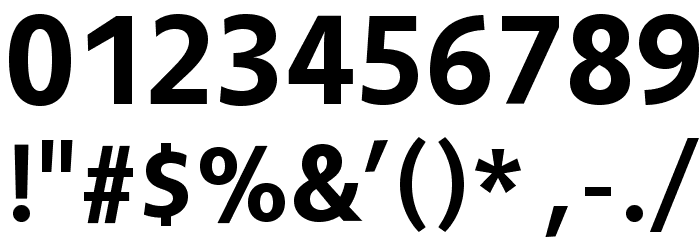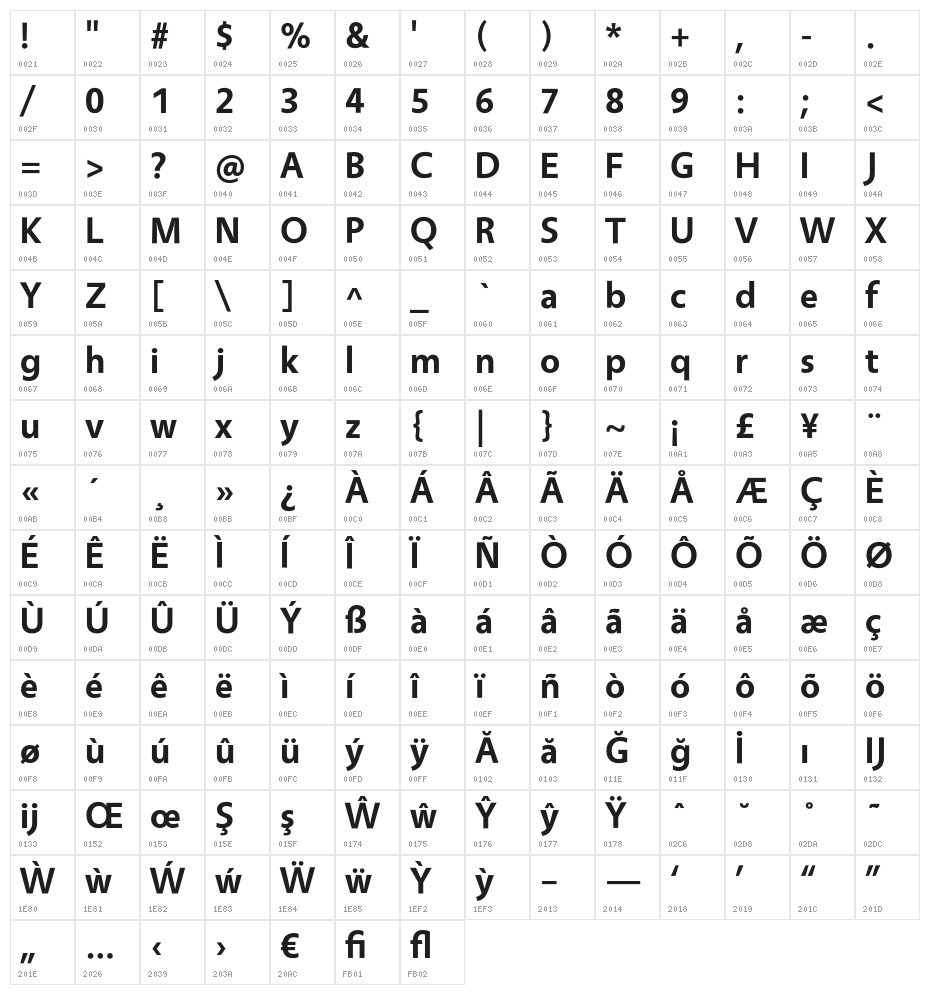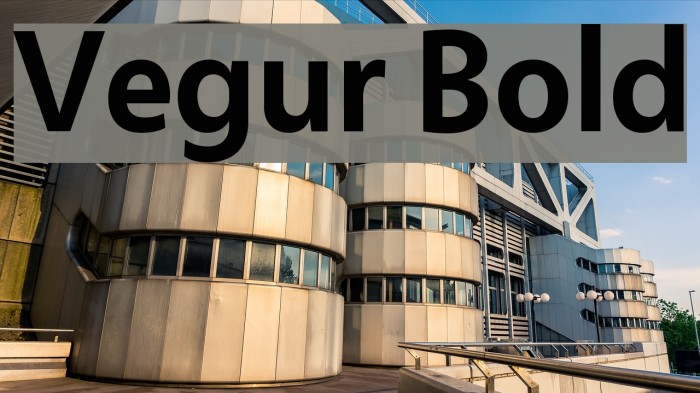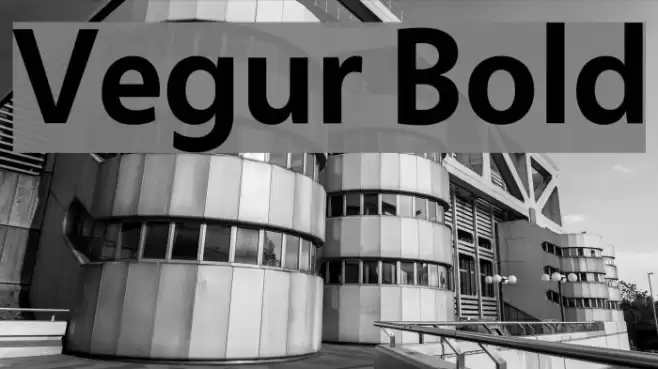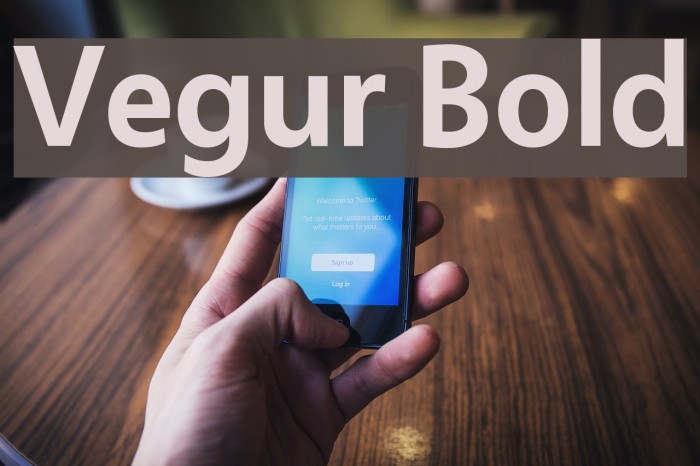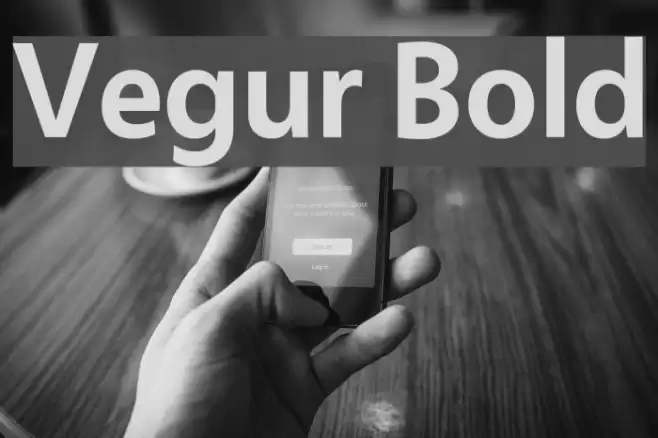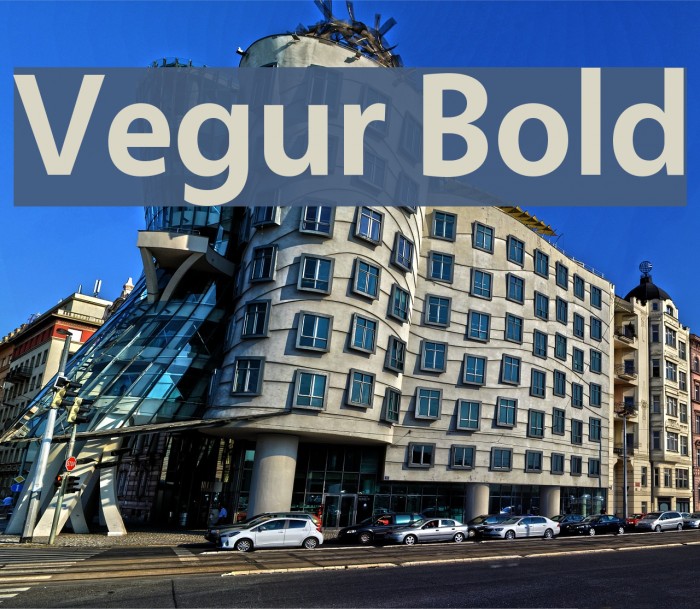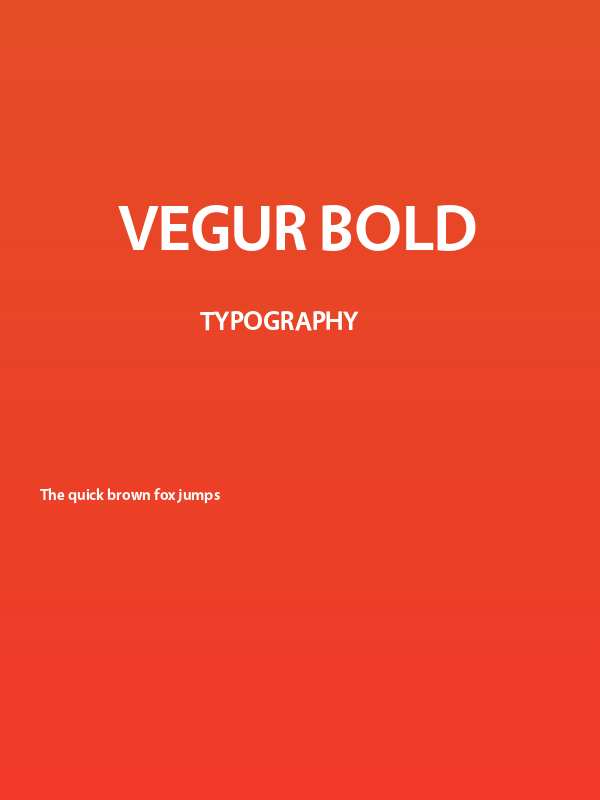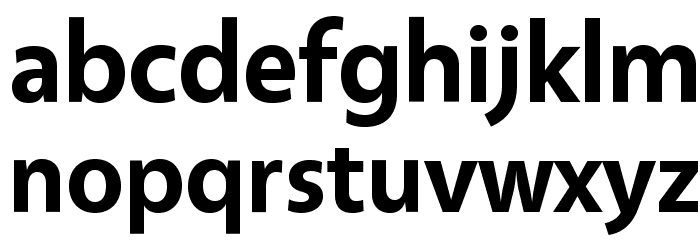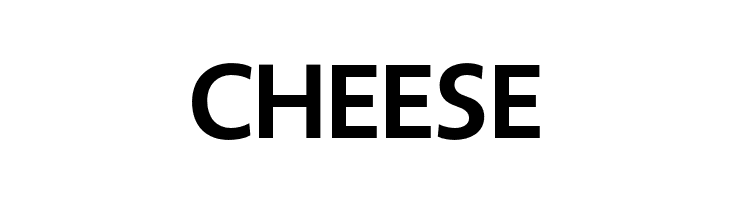
Vegur Bold Font
Vegur Bold Description
This typeface features a clean and modern sans-serif design with bold weight, offering excellent readability and a strong presence. The characters are well-proportioned with a consistent stroke width, providing a harmonious and balanced appearance. The uppercase letters are slightly taller than the lowercase, enhancing the font's legibility. The numerals are clear and distinct, making them suitable for various applications. Special characters are included, maintaining the font's cohesive style.
Use CaseHeadlines, Logos, Digital interfaces
Proposed ProjectsIdeal for branding, advertising, headlines, and digital interfaces where clarity and impact are essential.